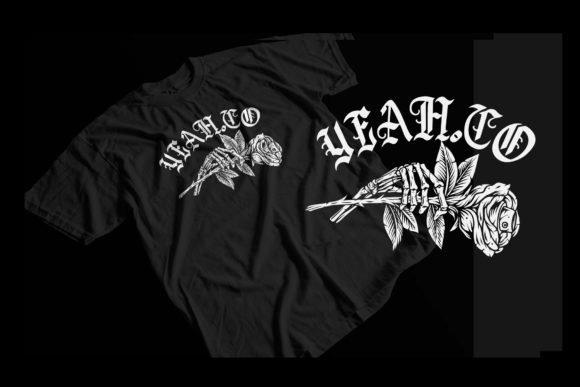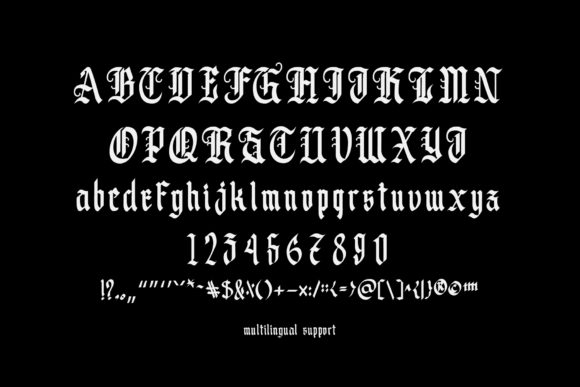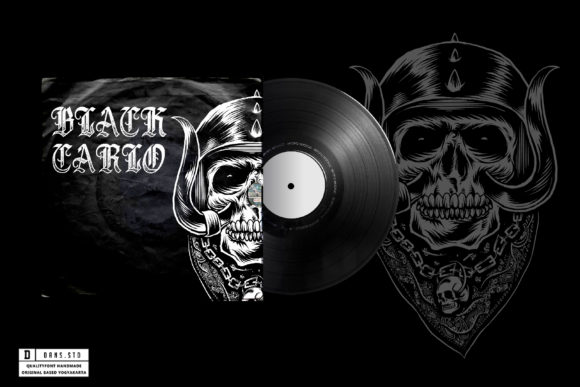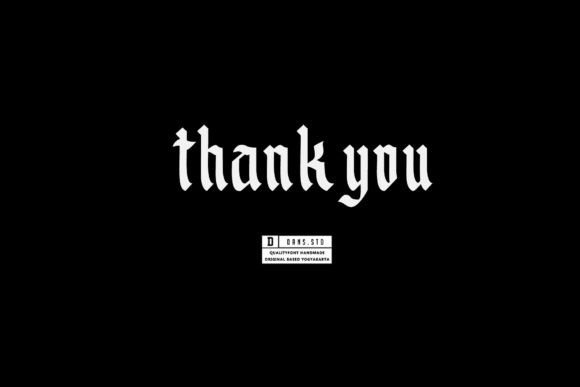
Introducing Carless Panther Font: The Ultimate Blackletter Addition to Your Designs
Are you a designer or crafter looking for a unique and authentic font to elevate your creative projects? Look no further than the Carless Panther Font, a simple yet striking blackletter font that’s sure to bring your designs to life. In this article, we’ll dive into the world of Carless Panther, exploring its features, benefits, and uses, as well as provide tips and inspiration for incorporating it into your work.
The Story Behind Carless Panther Font
Carless Panther Font is a modern take on traditional blackletter typography. Its design is rooted in the classic Gothic scripts of the past, yet it boasts a fresh and contemporary feel that’s perfect for a wide range of applications. Whether you’re creating a logo, poster, or packaging design, Carless Panther is the perfect choice for those seeking a bold, eye-catching font that’s sure to make a statement.
What Makes Carless Panther Font So Special?
So, what sets Carless Panther apart from other fonts? Here are just a few of its standout features:
- Authentic Blackletter Style: Carless Panther boasts an authentic blackletter style that’s reminiscent of traditional Gothic scripts.
- Simple yet Striking: Despite its bold and dramatic appearance, Carless Panther is surprisingly simple to read and use.
- Versatile: This font is perfect for a wide range of applications, from logos and posters to packaging and branding.
- Easily Customizable: With its clean and elegant design, Carless Panther is easy to customize to suit your specific needs.
How to Use Carless Panther Font in Your Designs
Now that we’ve explored the features and benefits of Carless Panther Font, let’s talk about how to use it in your designs. Here are a few tips and ideas to get you started:
- Pair it with a Sans-Serif Font: For a striking contrast, pair Carless Panther with a clean sans-serif font.
- Use it for Headings and Titles: Carless Panther is perfect for headings and titles, where its bold and dramatic appearance can really shine.
- Add it to Your Branding: Use Carless Panther as part of your branding identity to add a touch of elegance and sophistication.
- Experiment with Colors and Textures: Don’t be afraid to experiment with different colors and textures to really make Carless Panther pop.
Inspiration and Examples
Still not sure how to use Carless Panther Font in your designs? Here are a few examples and inspiration to get you started:
- Poster Design: Use Carless Panther as a bold and eye-catching headline font for your next poster design project.
- Logo Design: Create a striking logo for your brand or business using Carless Panther as your font of choice.
- Packaging Design: Add a touch of elegance and sophistication to your packaging designs with Carless Panther.
- Digital Art: Use Carless Panther as part of your digital art projects, such as illustrations, graphics, and more.
In conclusion, Carless Panther Font is a simple yet authentic blackletter font that’s perfect for designers and crafters looking to elevate their creative projects. With its bold and striking appearance, versatility, and ease of use, Carless Panther is sure to become a staple in your font collection. So why wait? Add Carless Panther to your designs today and watch them come alive!
Carless Panther Font is a simple and authentic blackletter font. Add it to your designs and make them come alive!